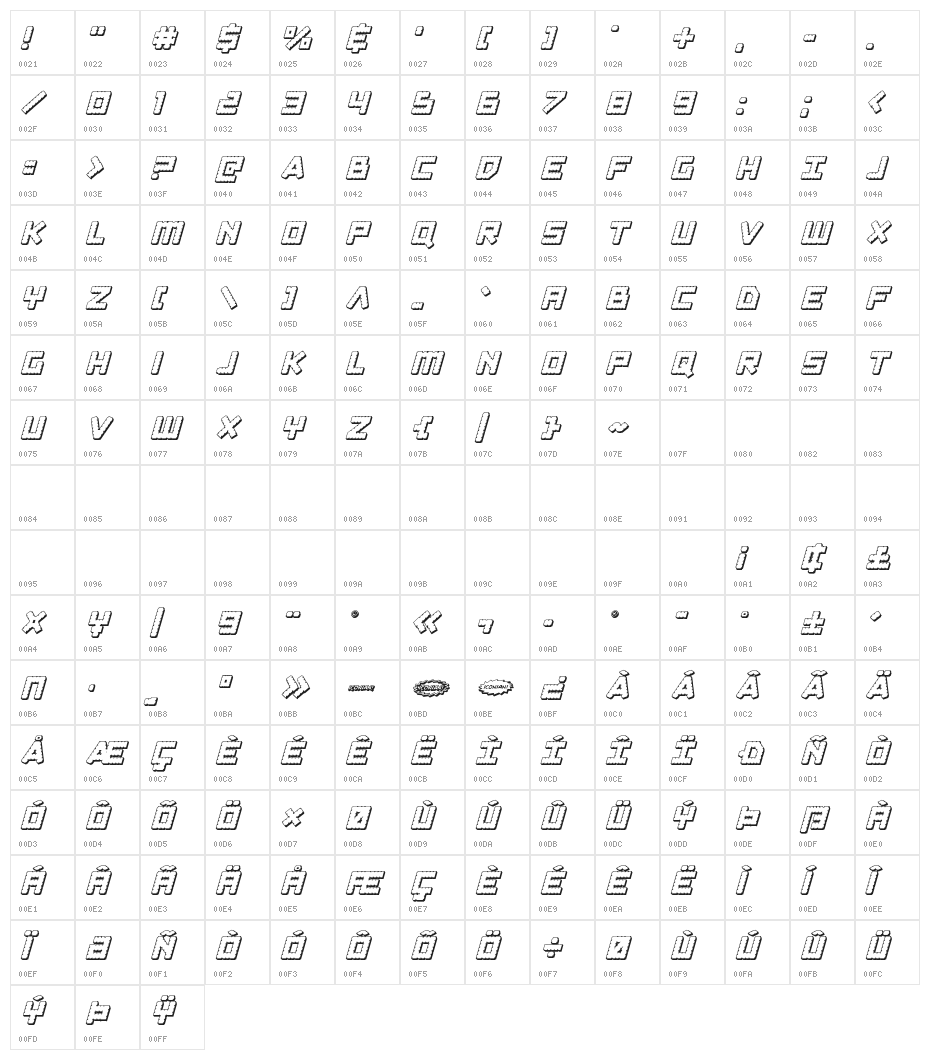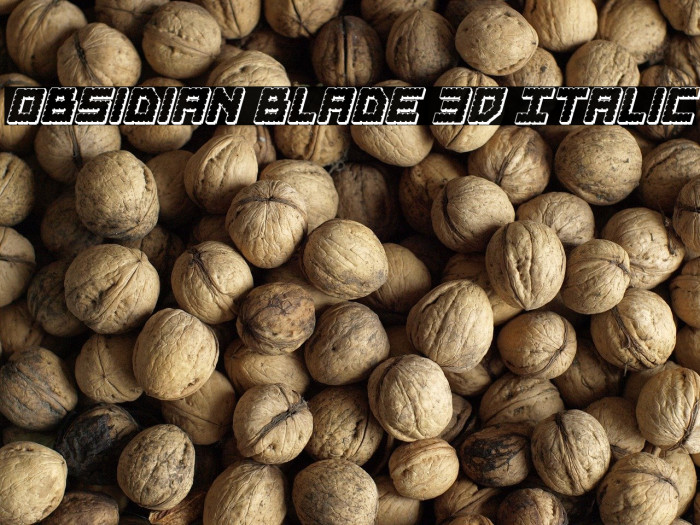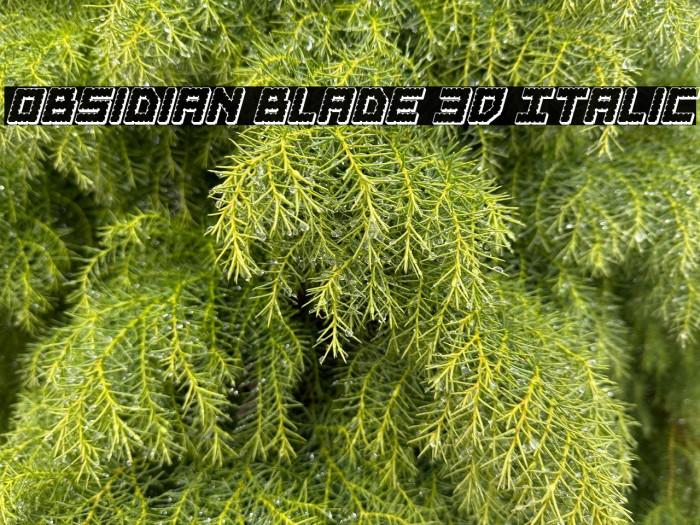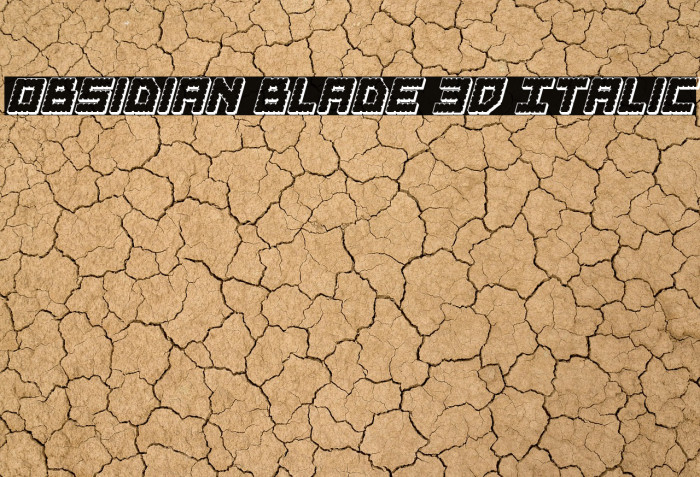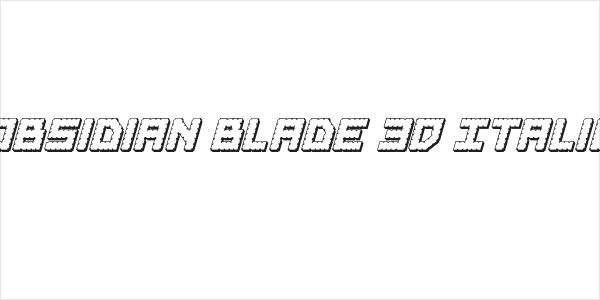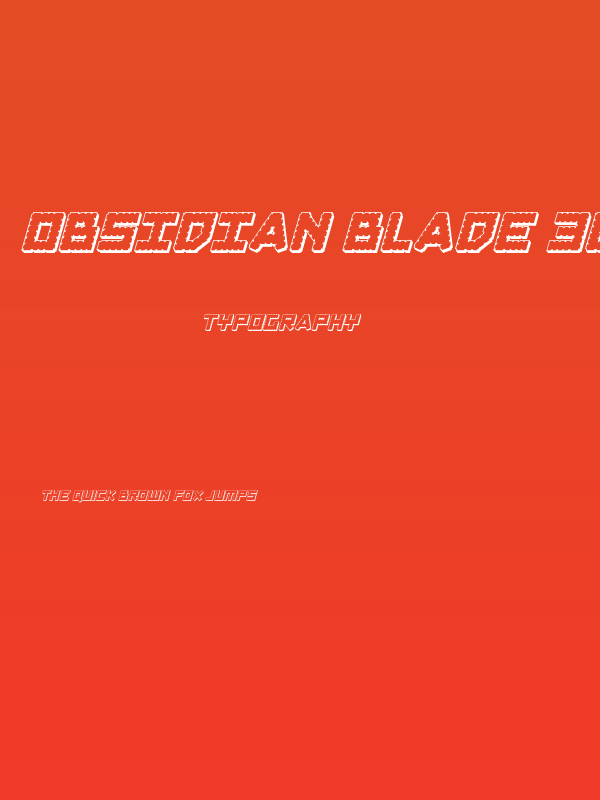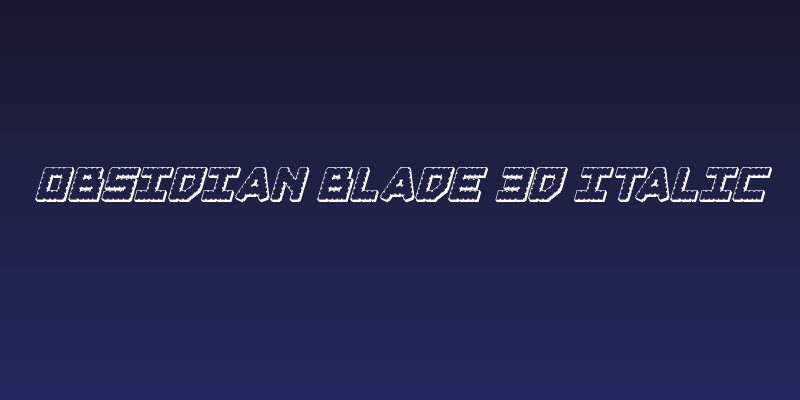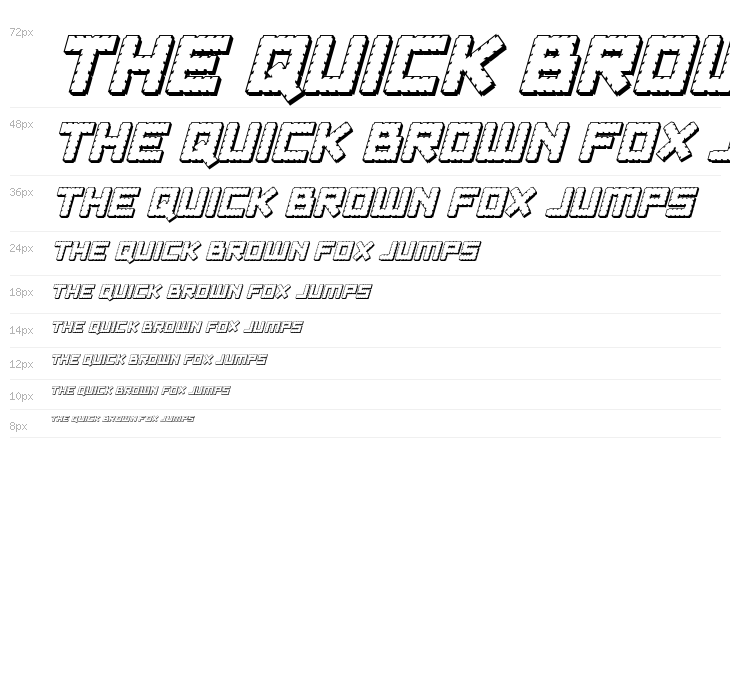
Obsidian Blade 3D Italic Font
Obsidian Blade 3D Italic Description
This font features a bold, three-dimensional design with a distinct italic slant, giving it a dynamic and futuristic appearance. The characters are outlined with a thick, jagged border that enhances their 3D effect, making them stand out prominently. The uppercase and lowercase letters maintain a consistent style, with sharp angles and a blocky structure. The numbers and special characters follow the same design principles, ensuring uniformity across all elements. This font's unique style makes it suitable for projects that require a strong visual impact.
| Overall Style | Futuristic, Decorative |
| Proposed Projects | Ideal for video game titles, sci-fi movie posters, tech-related branding, and any project needing a bold, eye-catching typeface. |